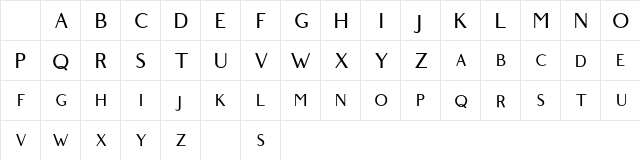
Belgium is a composed and adaptable typeface that performs quietly and consistently across a wide range of design contexts.
Pro Tip: Use Belgium in both headline and body roles to test its range before committing to a single application.